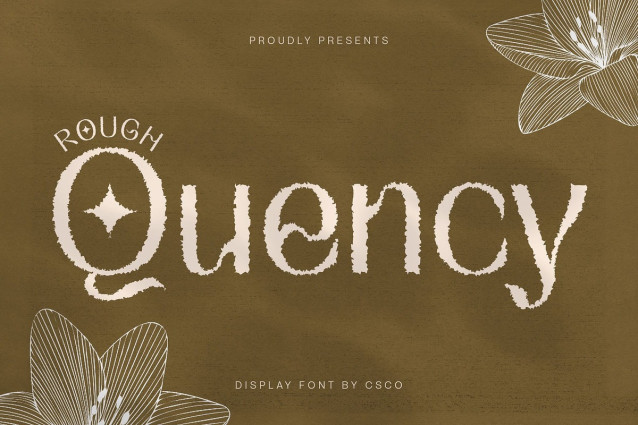
Quency Rough Font
Quency Rough Font is a modern sans serif font that beautifully merges the flowing, graceful curves characteristic of Art Nouveau with the simplicity and clarity of contemporary minimalism. This fusion creates a font that feels both timeless and fresh, perfectly balancing ornate elegance with modern restraint.
Feminine, Refined Lines with Distinctive Rough Texture Its delicate and elegant letterforms convey a feminine and refined impression, while the added rough texture introduces an artistic, handcrafted feel. This textured detail gives the font personality and depth, making it stand out with subtle expressiveness and bold character.
Luxurious Yet Bold and Expressive Quency Rough is ideal for projects that want to communicate sophistication with an edge. Its luxurious feel is paired with a bold, artistic vibe, allowing it to shine in high-end fashion branding, elegant product packaging, and striking art posters that demand attention and creativity.
Versatile for Creative and Sophisticated Applications Whether you’re designing upscale editorial layouts, boutique logos, or creative promotional materials, Quency Rough offers a unique balance of beauty and strength. Its blend of classic curves and rough textures makes it a standout choice for designers seeking to combine luxury with artistic expression.